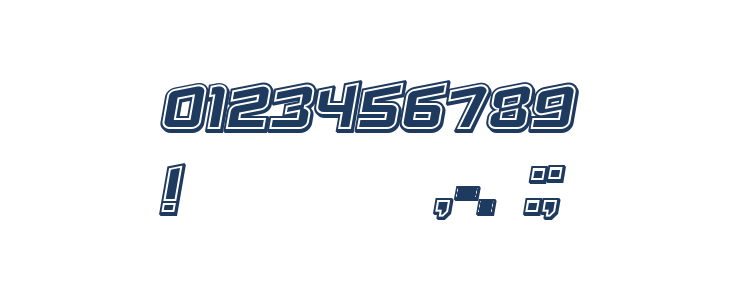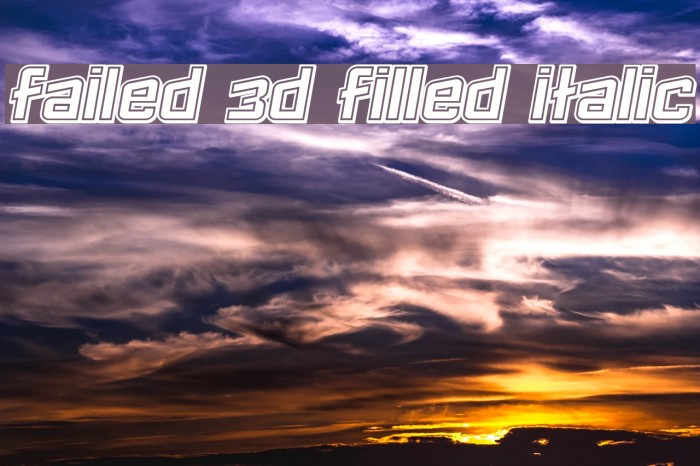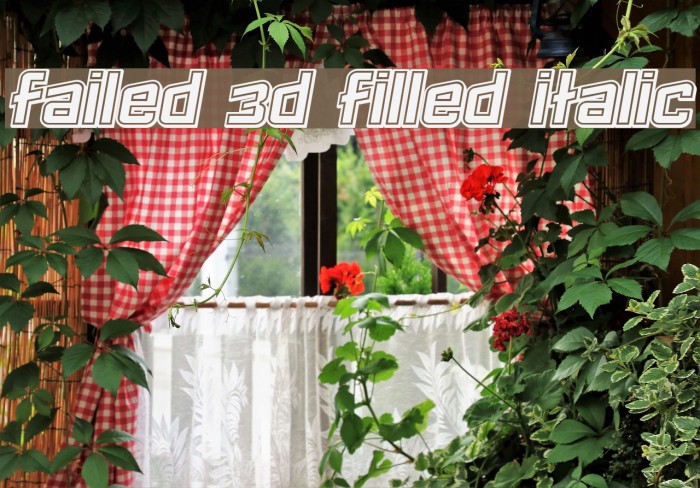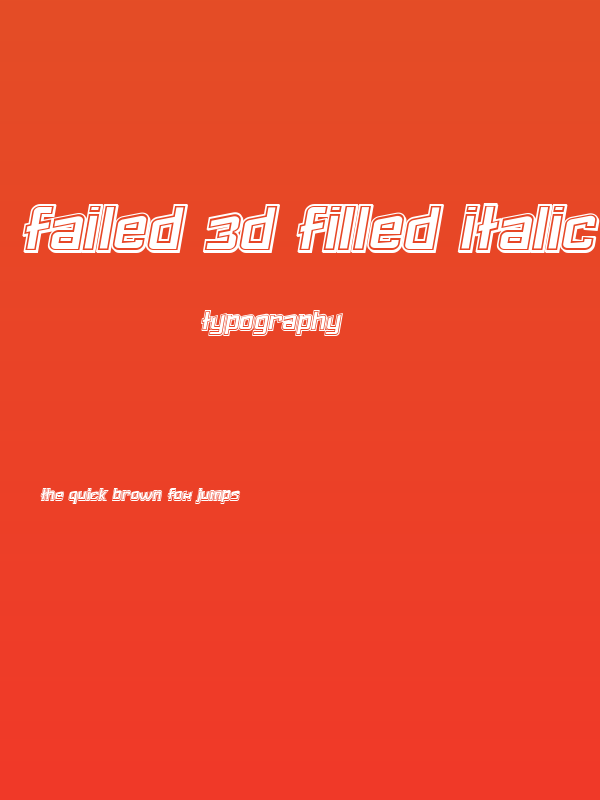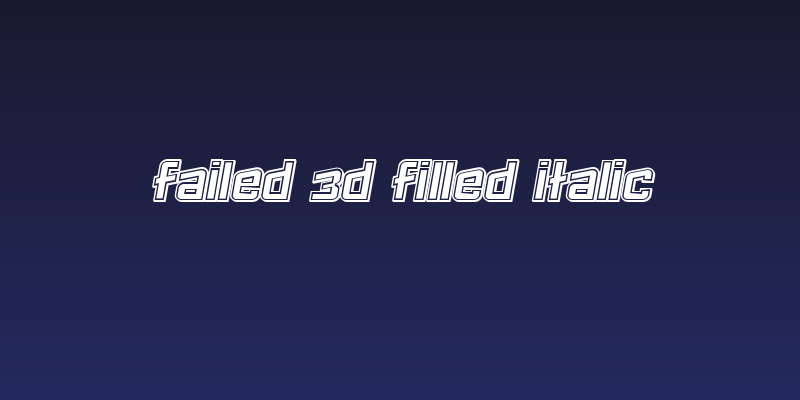
Failed 3d Filled Italic Font
Failed 3d Filled Italic Description
This font features a bold, three-dimensional appearance with a filled interior and a prominent outline. The italicized style gives it a dynamic and forward-moving look, enhancing its modern appeal. Each character is designed with a consistent thickness, contributing to a cohesive visual impact. The font's geometric structure is evident in the uniformity of its lines and curves, making it suitable for eye-catching designs. The spacing between characters is balanced, ensuring readability while maintaining its distinctive style. The numbers and special characters are crafted with the same attention to detail, ensuring they integrate seamlessly with the alphabetic characters.
| Proposed Projects | Ideal for projects needing a modern, dynamic look such as sports branding, tech logos, or video game titles. |